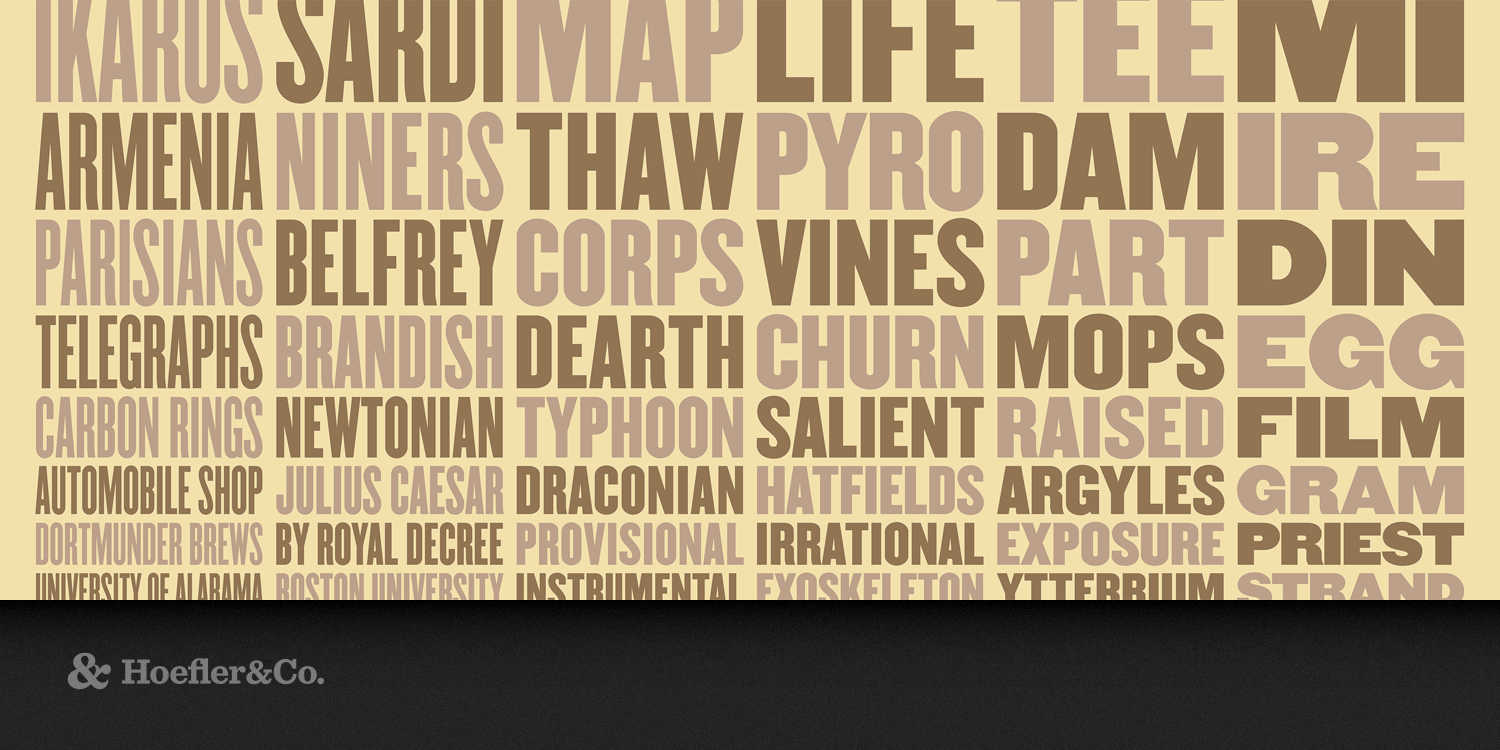
Champion Gothic Free Download
Champion Gothic Font Free Download
The Champion Gothic Font excels in sports team branding, athletic apparel design, fitness center signage, championship certificates, sports magazine headlines, team merchandise, stadium displays, and competitive event materials that require bold athletic aesthetics and championship-worthy typography.
What makes the Champion Gothic Font Free Download so exciting is its perfect embodiment of athletic excellence and competitive spirit through powerful letterforms. This typeface combines the strength of traditional gothic typography with modern sports aesthetics, featuring bold strokes, condensed proportions, and commanding presence that instantly communicates victory and achievement. Its dynamic character design captures the energy and determination associated with championship-level performance.
The Champion Gothic Font family includes comprehensive weight options from Light to Ultra Black, with condensed and extended variants for maximum design flexibility. The collection features Regular, Medium, Bold, Heavy, and Black styles, each maintaining the font's signature athletic character while providing versatility for different applications. This robust font system ensures consistent performance across jerseys, banners, digital displays, and print materials.
Perfect for sports organizations, athletic brands, fitness companies, and event management agencies creating championship-caliber visual communications. The font's competitive edge makes it essential for sports marketers, team designers, and creative professionals working on high-impact athletic campaigns. Download Champion Gothic Font Free Download today and give your sports-related projects the winning typography they deserve with this powerful typeface designed for champions.